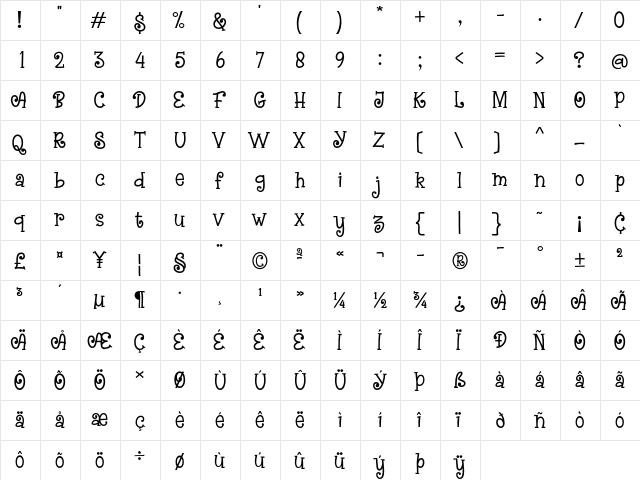
Beautiful Maples Regular
Regular · 7NTypes Dreamink; Dani; Situjuh Nazara ·
Foundry 7NTypes
DesignerDreamink; Dani; Situjuh Nazara
Design Context for Beautiful Maples Typeface
Beautiful Maples is a composed and adaptable typeface that performs quietly and consistently across a wide range of design contexts.